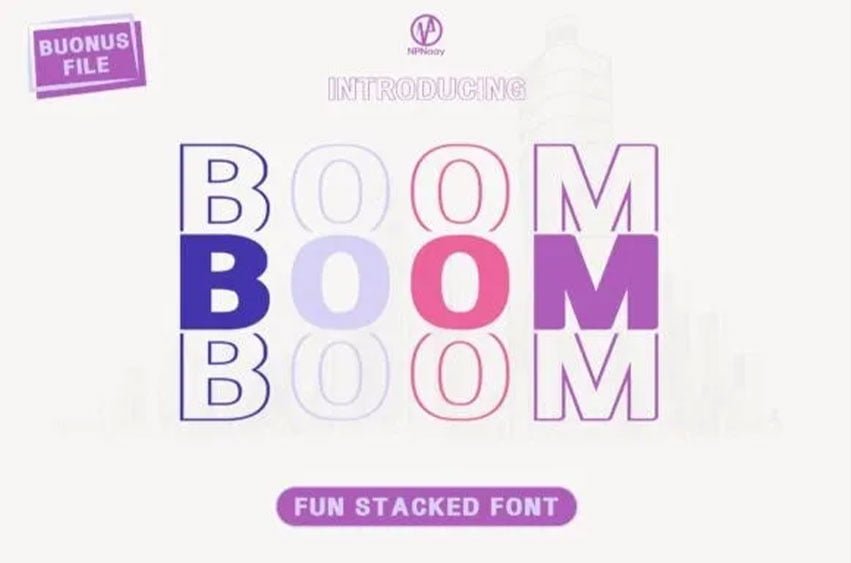
Boom Font
Boom Font is a cool and friendly display font. Contemporary and fresh, it is perfect for any design you wish to create. Add it to your creative projects and make them outstanding!